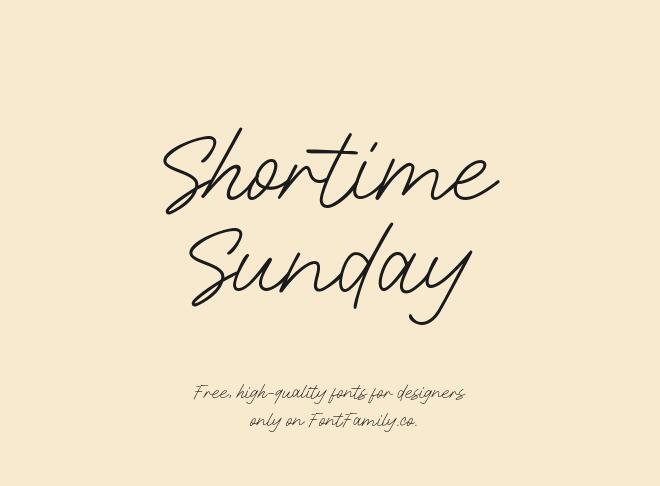
Shortime Sunday Font
Shortime Sunday Font is a modern, playful, handwritten display font designed by Fontastic Foundry. This font carries a unique blend of simplicity and creativity, making it perfect for a wide range of design projects. Whether you're working on branding, advertising, poster design, or social media content, Shortime Sunday Font adds a touch of personal charm and playful flair. It's versatility makes it comparable to popular fonts such as Comic Sans and Chalkduster, but with a more modern and unique twist. Free to download for personal use, Shortime Sunday Font is a great addition to any designer's toolkit, providing a fresh and distinctive look that stands out from the crowd. Its legibility and adaptability make it a great choice for both print and digital designs.